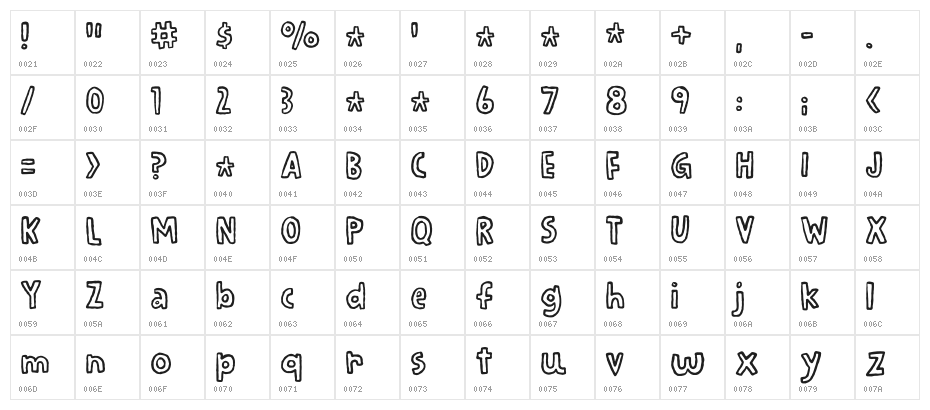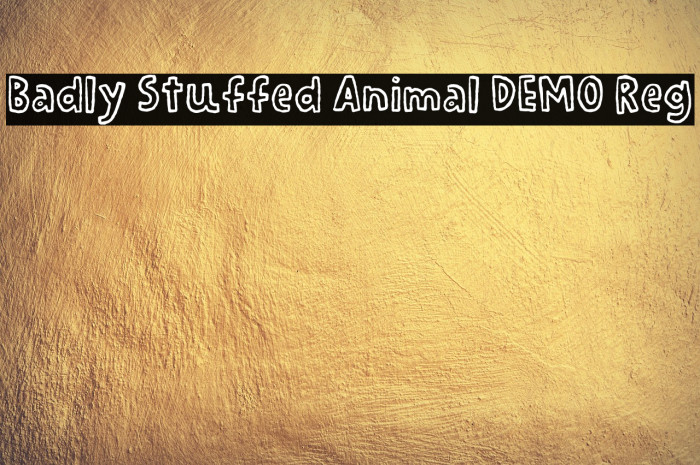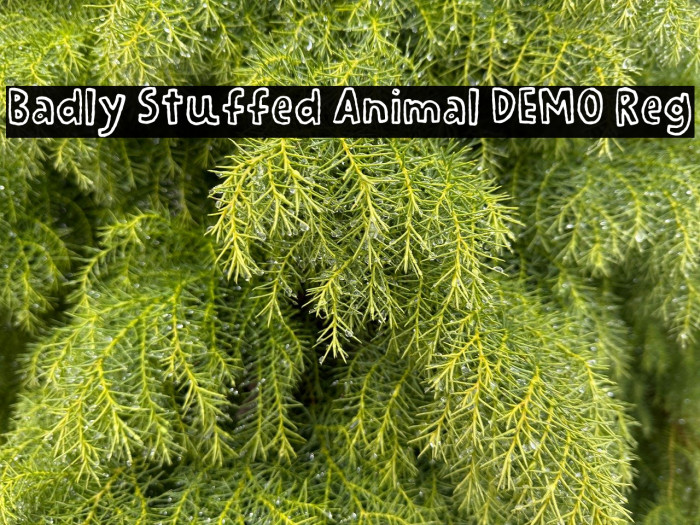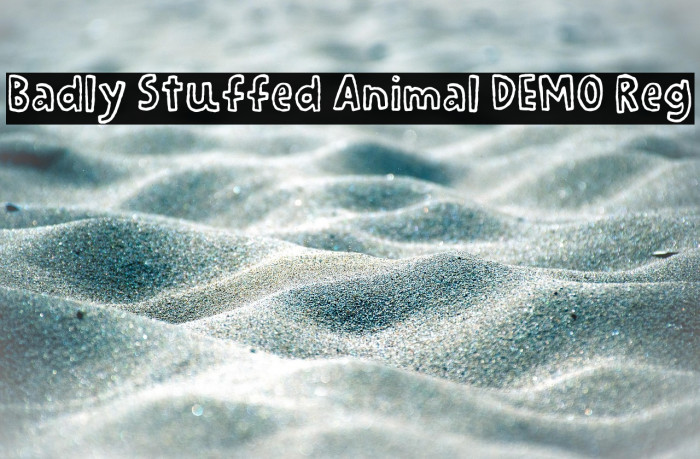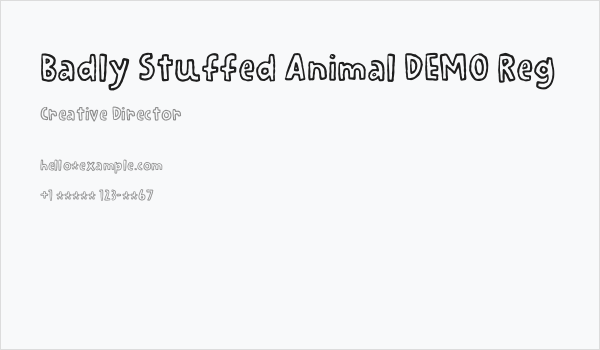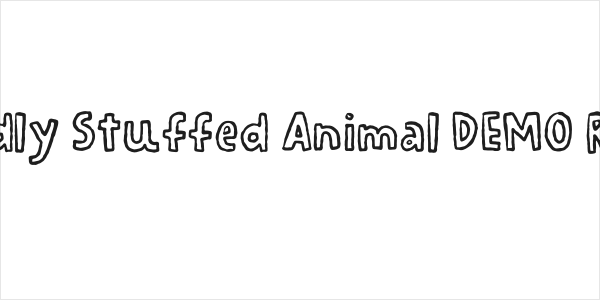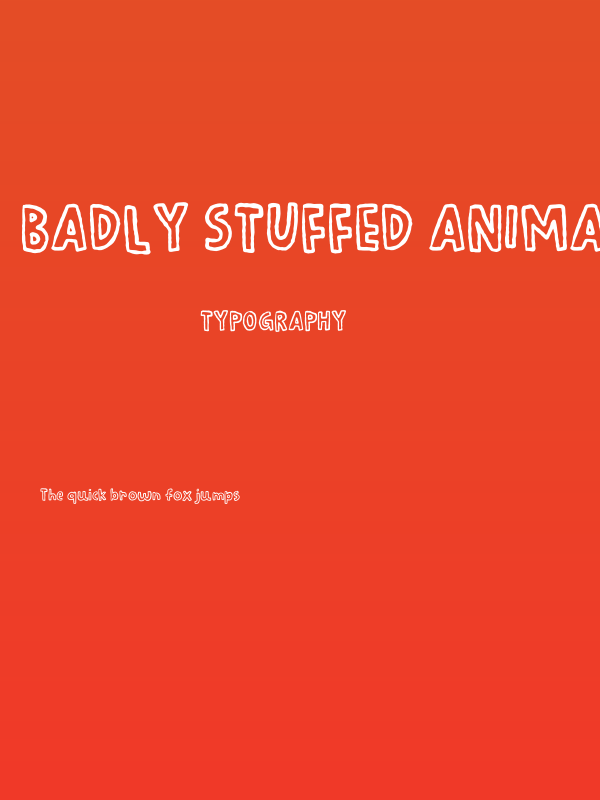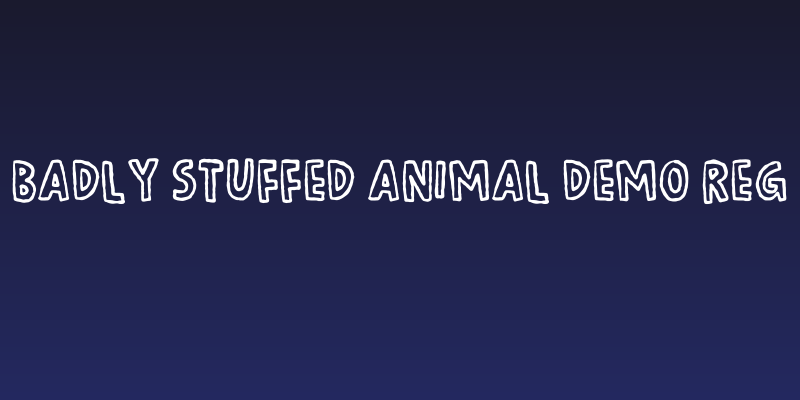
Badly Stuffed Animal DEMO Reg Font
Badly Stuffed Animal DEMO Reg Description
This playful and whimsical font features a hand-drawn, uneven style that mimics the look of letters stitched onto fabric. Each character has a unique, slightly irregular outline that adds to its charm and informal appearance. The font maintains a consistent thickness throughout, giving it a cohesive look despite its quirky design. The uppercase and lowercase letters are both bold and rounded, with a friendly and approachable feel. Numbers and special characters are included, maintaining the same playful aesthetic. This font is perfect for projects that require a fun, casual, and creative touch.
| Proposed Projects | Ideal for children's books, playful branding, casual invitations, and creative posters. |